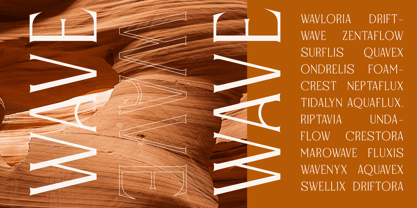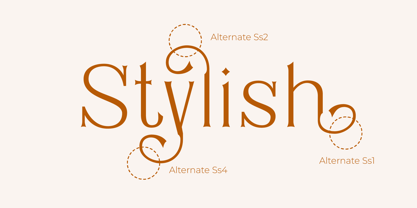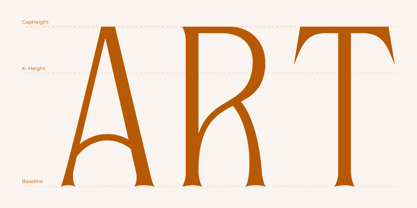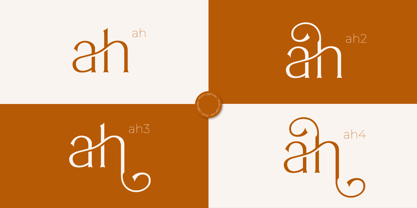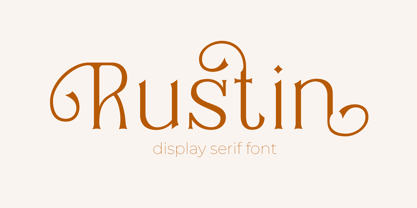
Rustin
The Rustin Font Family was designed by Risma Mulyasari and published by Risma Type. Rustin contains 2 styles and family package options.
Rustin – A Distinctive Serif Display Font
Rustin is a serif display font with a unique blend of elegance and character. Its refined letterforms, combined with subtle textures and organic imperfections, create a sophisticated yet artistic look. Designed for branding, editorial design, posters, and digital media, Rustin adds personality to any creative project.
With a balance of classic typography and modern expression, this font is perfect for those looking to create a memorable and stylish visual identity.
Key Features:
Refined and expressive serif style
Subtle textures and handcrafted imperfections
Ideal for branding, posters, and editorial design
Multi-language support
Designed for creatives seeking a timeless yet artistic touch